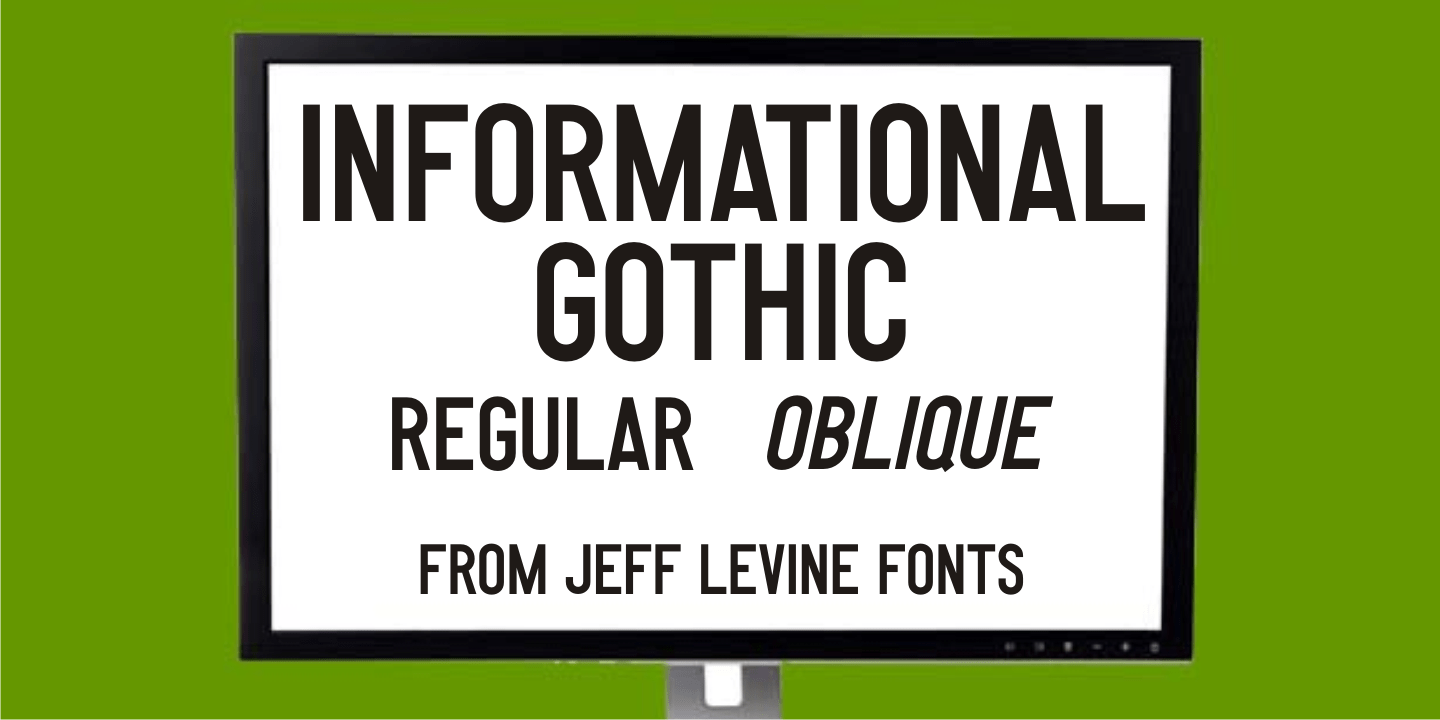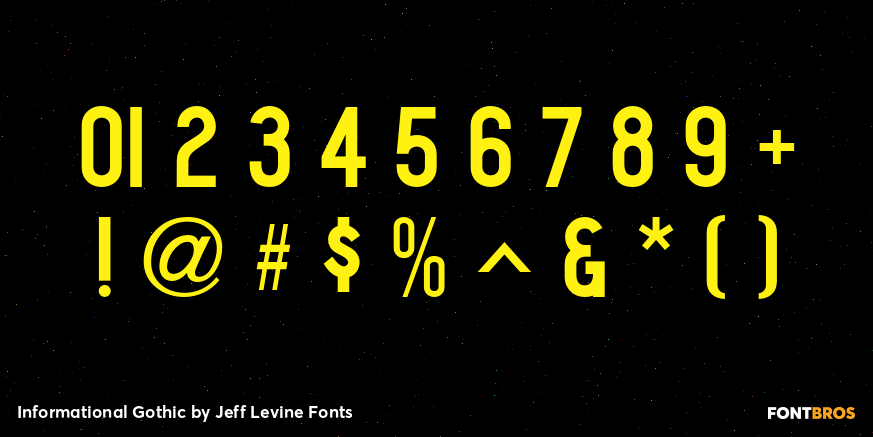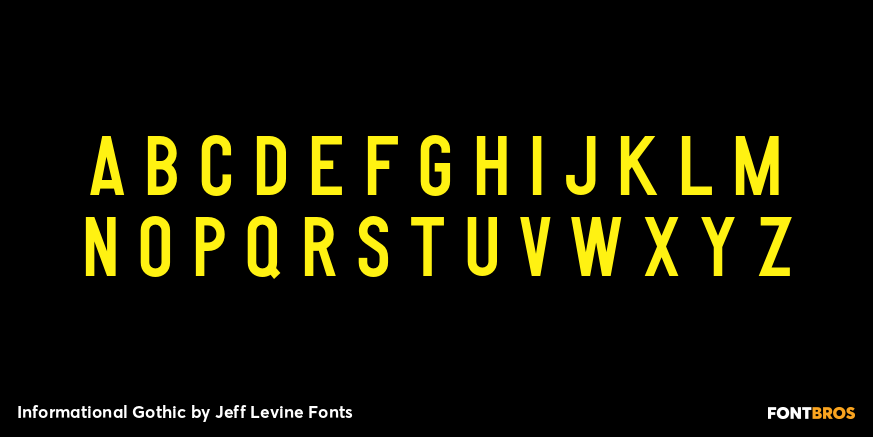
Informational Gothic
The Wood-Regan Instruments Company (Wrico) of New Jersey manufactured for decades a line of lettering kits called the Wrico Sign Maker. With only special ink pens, plastic templates and a template guide anyone could letter clean, clear signs, posters and notices.
Based on the same principles of architectural templates, the lettering was [for the most part] utilitarian and functional. Few templates were of stylized or decorative lettering.
Informational Gothic JNL and its oblique version are based on the four inch high lettering templates from one of those kits.
Informational Gothic JNL Regular by Jeff Levine Fonts